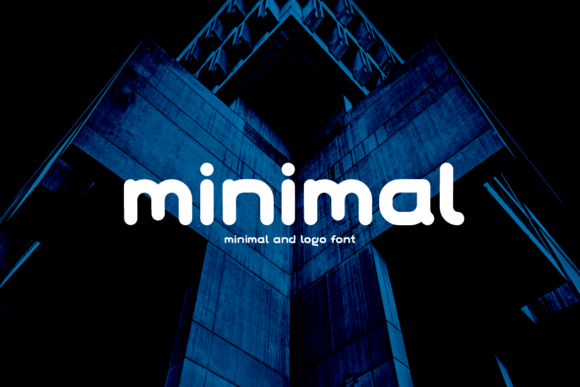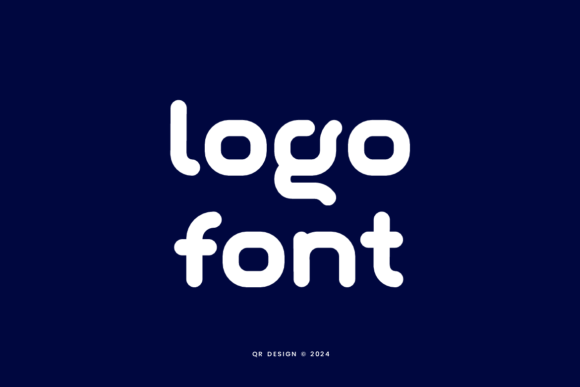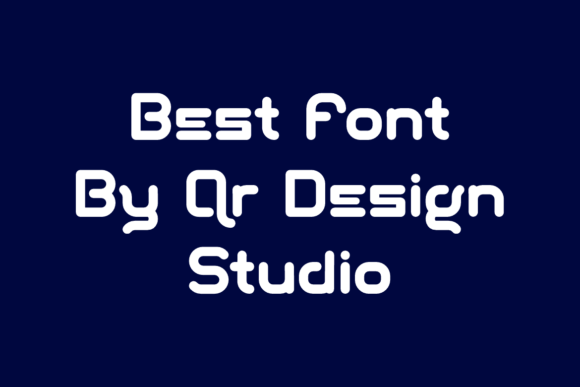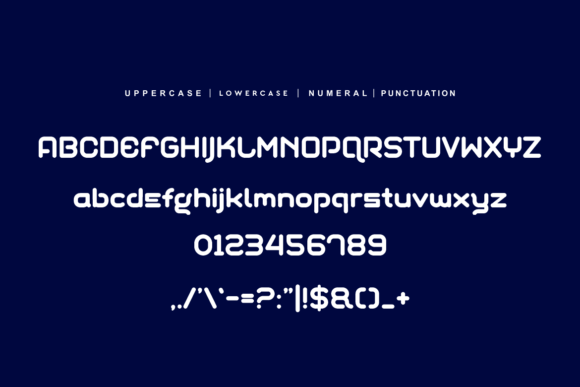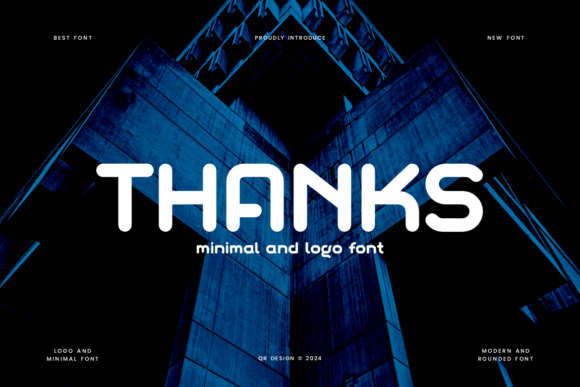
Introducing Clogilax Font: The Bold and Assertive Sans Serif Game-Changer
In the world of typography, fonts play a crucial role in conveying messages, expressing emotions, and creating visual identities. For designers, crafters, and creative enthusiasts, finding the perfect font can be a daunting task. However, if you’re looking for a bold and assertive sans serif font that can elevate your creations, look no further than Clogilax Font.
The Power of Clogilax Font
Clogilax is a bold and assertive sans serif font designed to make a statement. Its clean and modern lines make it an excellent choice for a wide range of applications, from branding and advertising to packaging and digital media. With Clogilax, you can add a touch of sophistication and elegance to your designs, making it an incredible asset to your font library.
Key Features of Clogilax Font
• Bold and Assertive: Clogilax is designed to grab attention and make a statement. Its bold and assertive style ensures that your message is heard loud and clear.
• Sans Serif: The clean and modern sans serif design of Clogilax makes it perfect for digital media, branding, and advertising.
• Versatile: Clogilax can be used for a wide range of applications, from headlines and titles to body text and captions.
• Elegant: The font’s elegant lines and curves add a touch of sophistication to your designs, making it perfect for luxury brands and high-end products.
Why Choose Clogilax Font?
With so many fonts available, why choose Clogilax? Here are just a few reasons why Clogilax stands out from the crowd:
• Uniqueness: Clogilax has a unique and distinctive style that sets it apart from other sans serif fonts.
• Legibility: The font is designed to be highly legible, making it perfect for body text and captions.
• Flexibility: Clogilax can be used for a wide range of applications, from digital media to print materials.
• Timeless: The font’s classic design ensures that it will remain relevant for years to come, making it a great investment for your font library.
How to Use Clogilax Font
Clogilax is an incredibly versatile font that can be used in a variety of ways. Here are just a few ideas to get you started:
• Branding: Use Clogilax as a logo font or as a headline font to add a touch of sophistication to your brand.
• Advertising: The font’s bold and assertive style makes it perfect for advertising and marketing materials.
• Packaging: Clogilax can be used on product packaging to add a touch of elegance and sophistication.
• Digital Media: The font is perfect for digital media, including websites, social media, and email marketing.
In conclusion, Clogilax Font is a bold and assertive sans serif font that is sure to elevate your creations. With its clean and modern lines, elegant curves, and highly legible design, Clogilax is an incredible asset to your font library. Whether you’re a designer, crafter, or creative enthusiast, Clogilax is the perfect choice for any project. So why wait? Download Clogilax Font today and start creating stunning designs that make a statement!